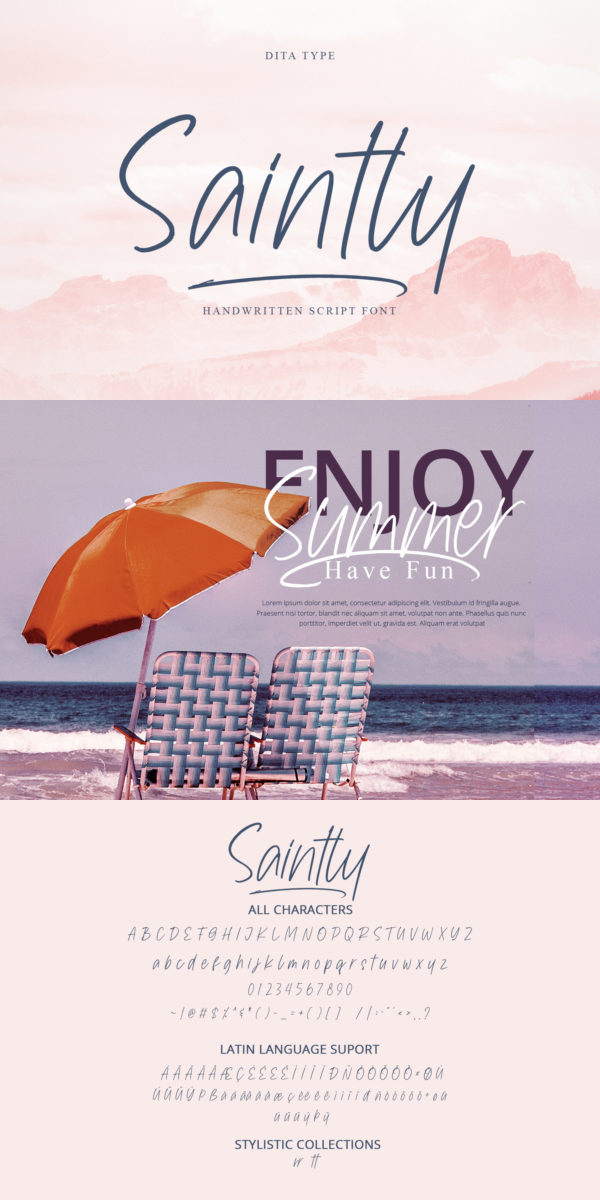
Saintly Font
About Saintly
Saintly is a modern handwritten font. With a classy and natural handwritten style, it brings a classy and chic typeface. Saintly is best used for weddings, branding, logotype, and quotes.
– Beautiful Ligatures